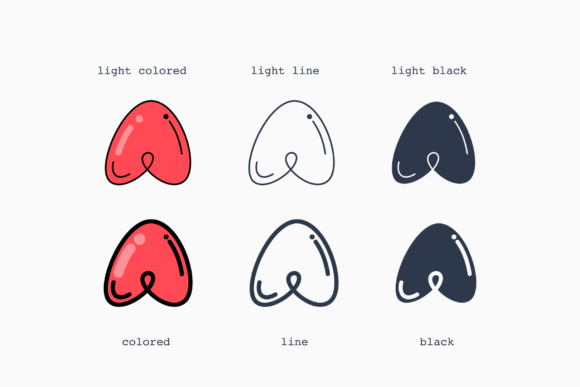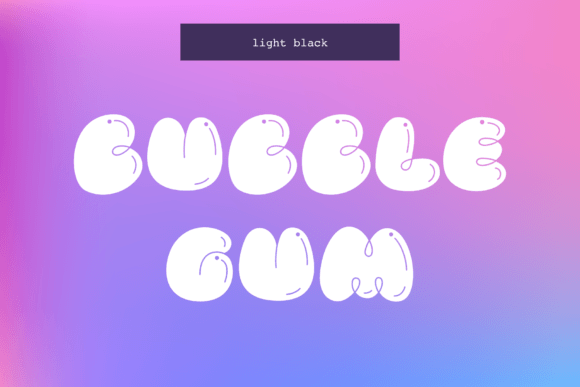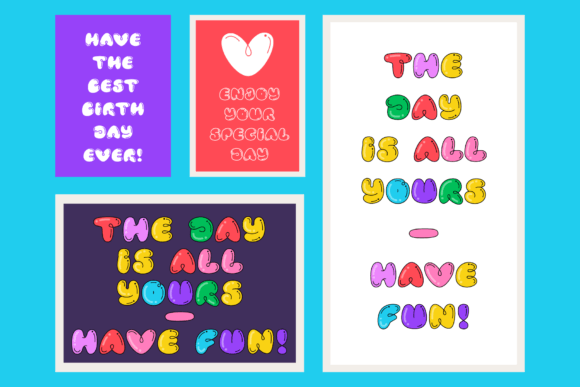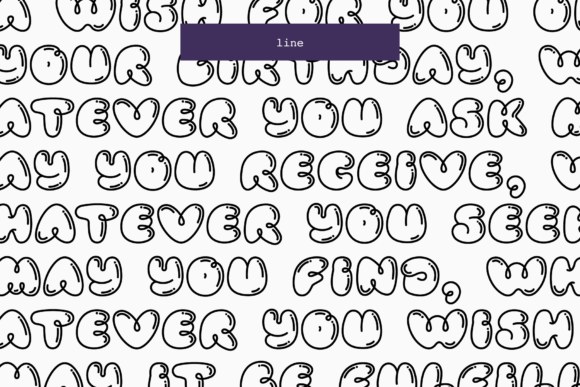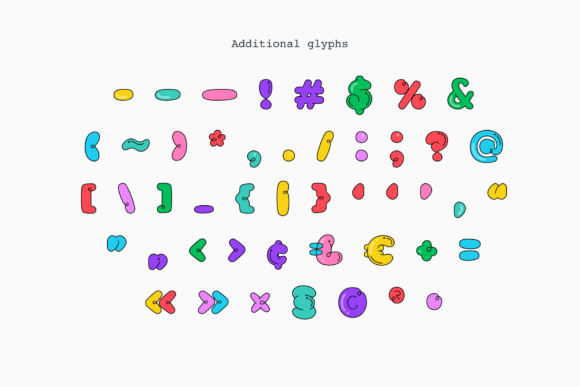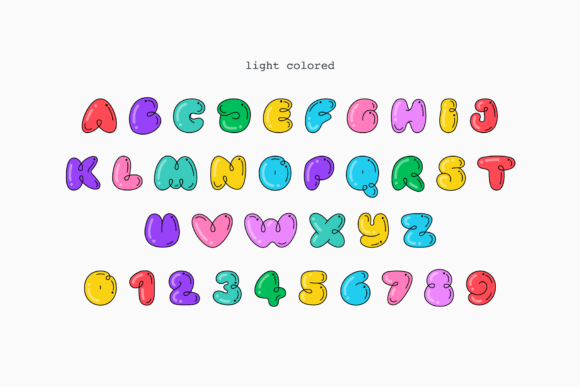
Introducing Bold Loop Font: The Fun and Quirky Display Font for Creative Designs
Are you tired of using the same old fonts for your designs? Look no further than Bold Loop Font, a fun and cool display font that’s sure to add a touch of whimsy to your creations. Made up of overlapping lines in a childish style, Bold Loop is the perfect font for designers and crafters who want to add a bit of personality to their work.
What is Bold Loop Font?
Bold Loop Font is a unique and eye-catching display font that’s designed to make a statement. Its overlapping lines create a fun and playful look that’s reminiscent of childhood doodles and scribbles. The font is ideal for use in a variety of applications, including colorful designs, children’s products, bright advertising, mosaic packaging, and multimedia identity.
Characteristics of Bold Loop Font
So, what makes Bold Loop Font so special? Here are just a few of its key characteristics:
- Fun and playful design: Bold Loop Font features overlapping lines that create a fun and quirky look.
- Childish style: The font’s childish style makes it perfect for designs aimed at kids or for adding a touch of whimsy to adult designs.
- Display font: Bold Loop Font is designed to be used as a display font, making it perfect for headlines, titles, and other attention-grabbing elements.
- Overlapping lines: The font’s overlapping lines create a unique and eye-catching effect.
Uses for Bold Loop Font
So, what can you use Bold Loop Font for? The possibilities are endless, but here are a few ideas to get you started:
- Children’s design: Bold Loop Font is perfect for designing children’s products, such as toys, books, and games.
- Colorful applications: The font’s bright and playful design makes it ideal for use in colorful applications, such as posters, flyers, and brochures.
- Bright advertising: Bold Loop Font is sure to grab attention in advertising materials, such as billboards, magazine ads, and social media graphics.
- Mosaic packaging: The font’s unique design makes it perfect for use in mosaic packaging, such as tile designs and puzzle packaging.
- Multimedia identity: Bold Loop Font can be used to create a fun and playful brand identity for multimedia companies, such as video production companies and game developers.
Why Choose Bold Loop Font?
So, why should you choose Bold Loop Font for your next design project? Here are just a few reasons:
- Unique design: Bold Loop Font features a unique and eye-catching design that’s sure to set your work apart.
- Versatility: The font can be used in a variety of applications, from children’s design to bright advertising.
- Fun and playful: Bold Loop Font adds a touch of whimsy and fun to any design.
- Easily readable: Despite its playful design, Bold Loop Font is easily readable, even at small sizes.
Tips for Using Bold Loop Font
Here are a few tips for getting the most out of Bold Loop Font:
- Use it as a display font: Bold Loop Font is designed to be used as a display font, so use it to grab attention and make a statement.
- Experiment with colors: The font’s playful design lends itself well to bright and bold colors, so don’t be afraid to experiment.
- Pair it with a simple font: Bold Loop Font can be overwhelming if used for large blocks of text, so pair it with a simple font for body text.
In conclusion, Bold Loop Font is a fun and quirky display font that’s perfect for designers and crafters who want to add a touch of personality to their work. Its unique design, versatility, and playful style make it ideal for use in a variety of applications, from children’s design to bright advertising. So why not give it a try and see what kind of creative designs you can come up with?